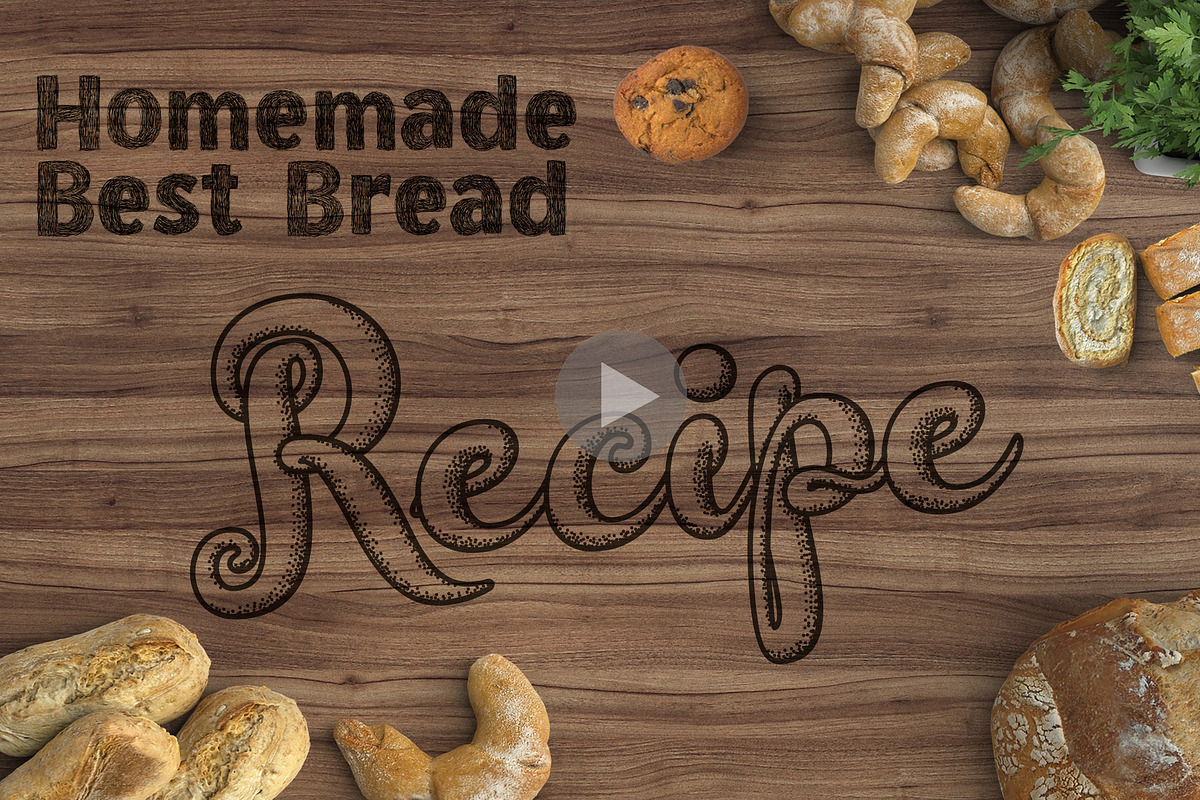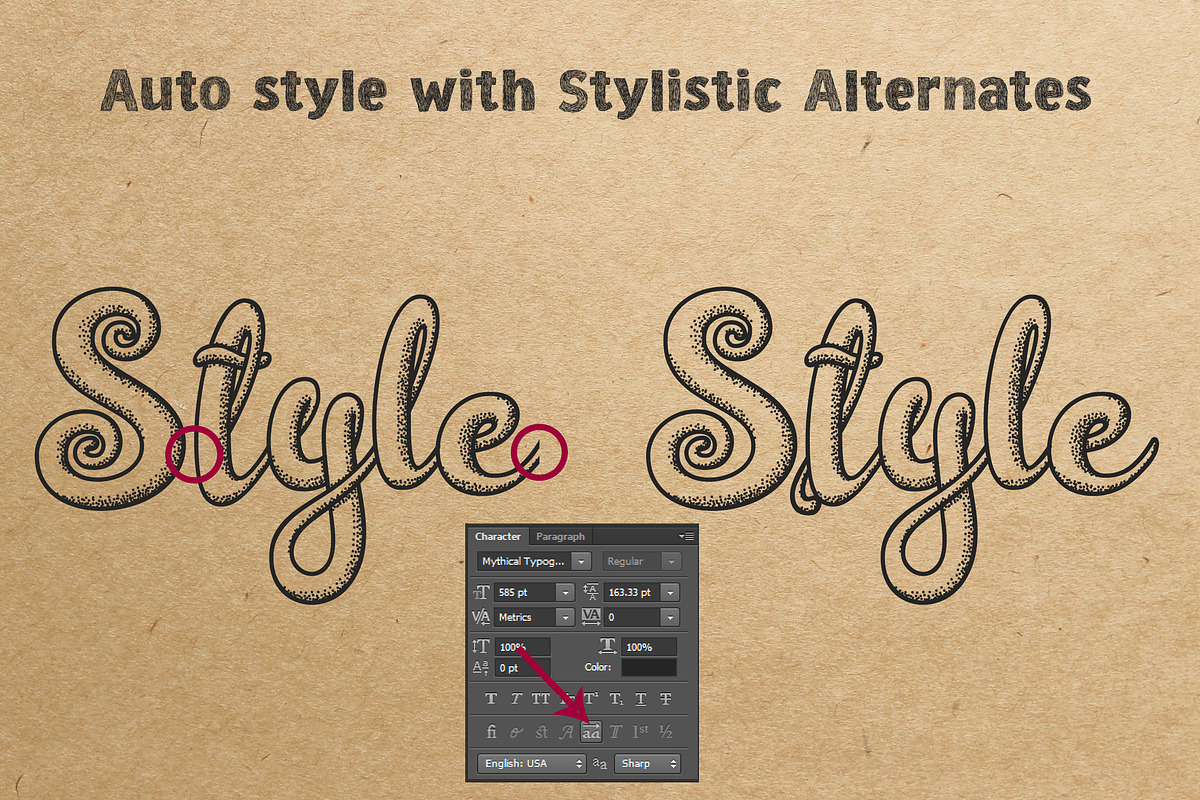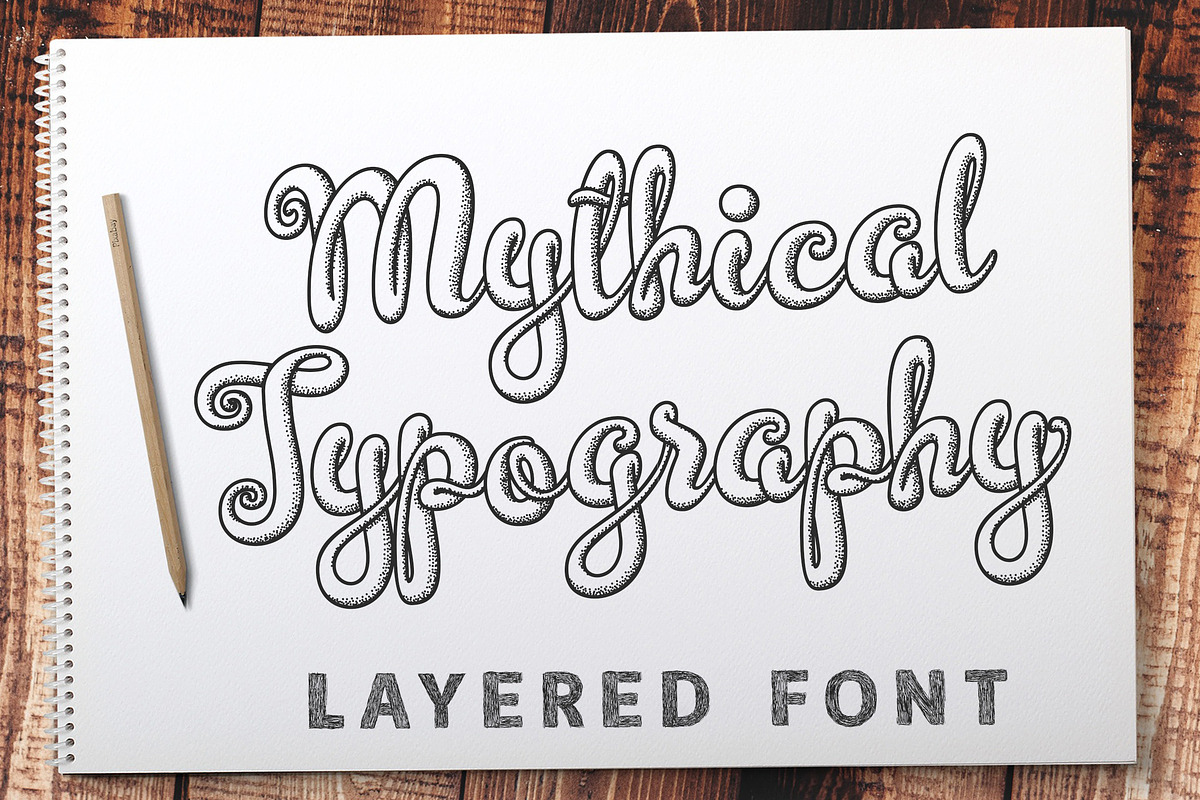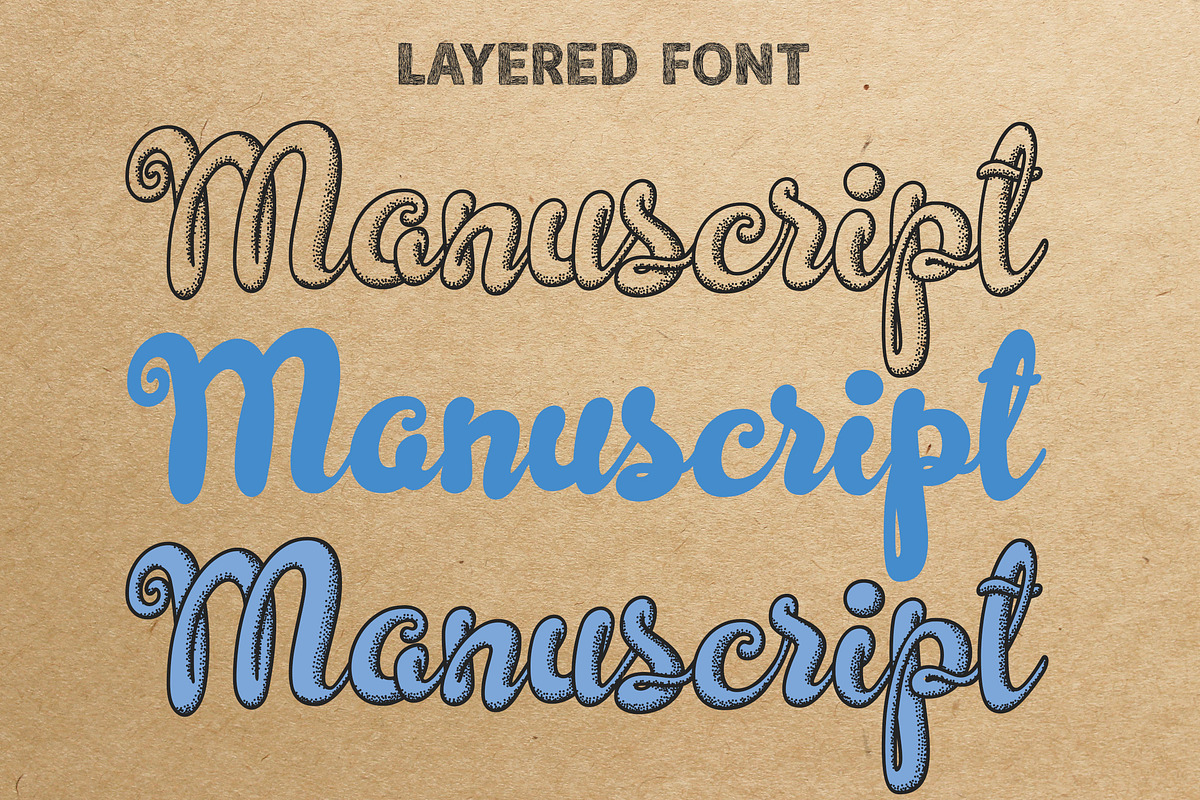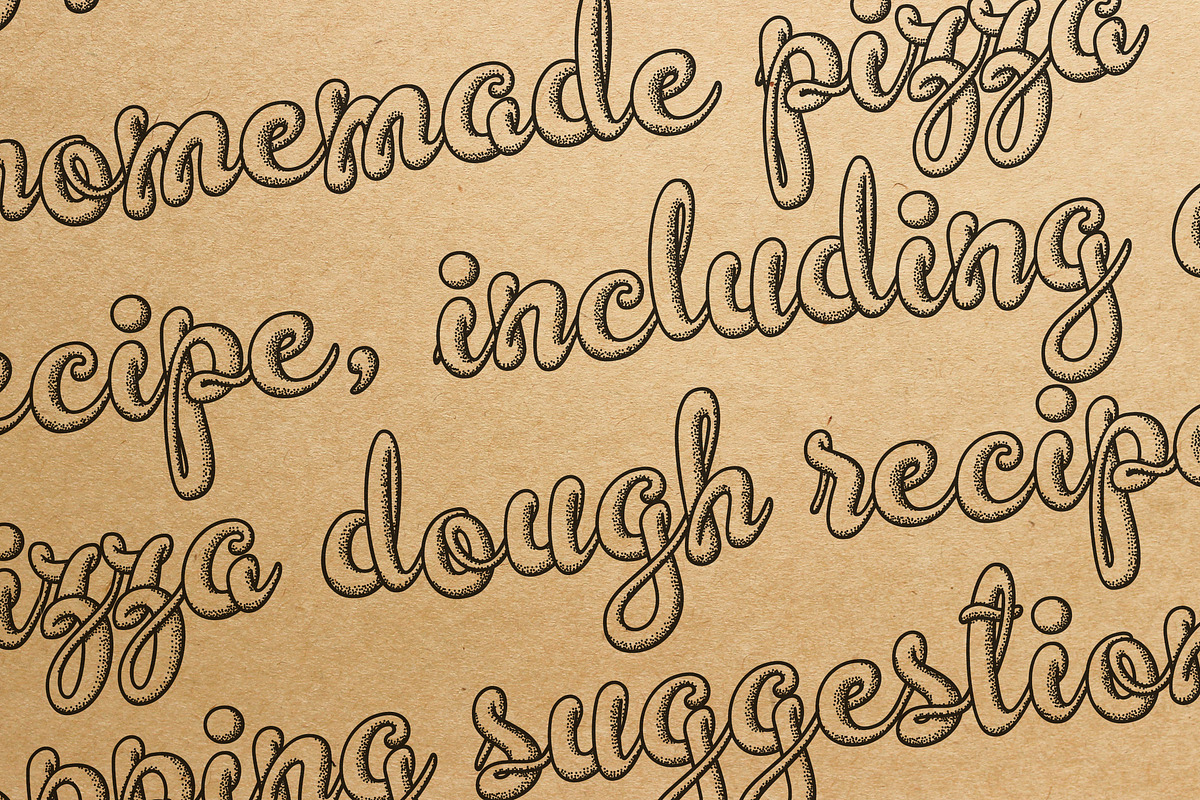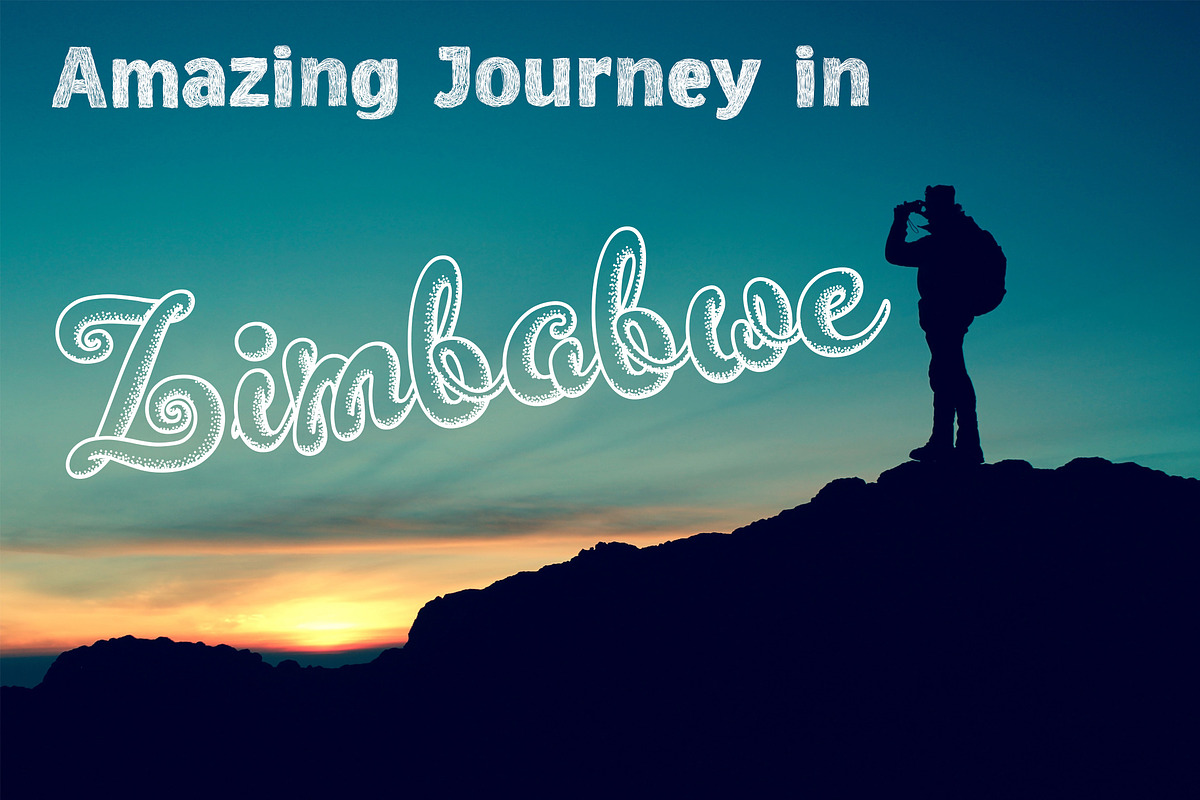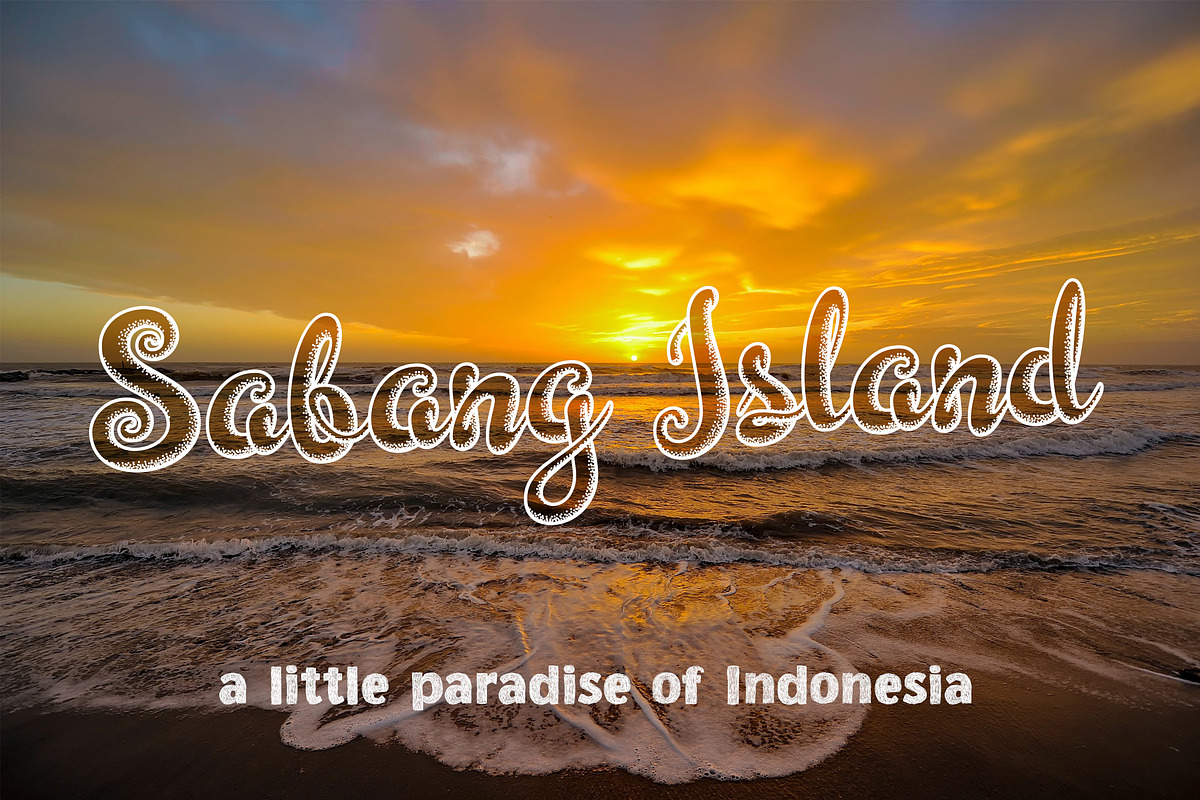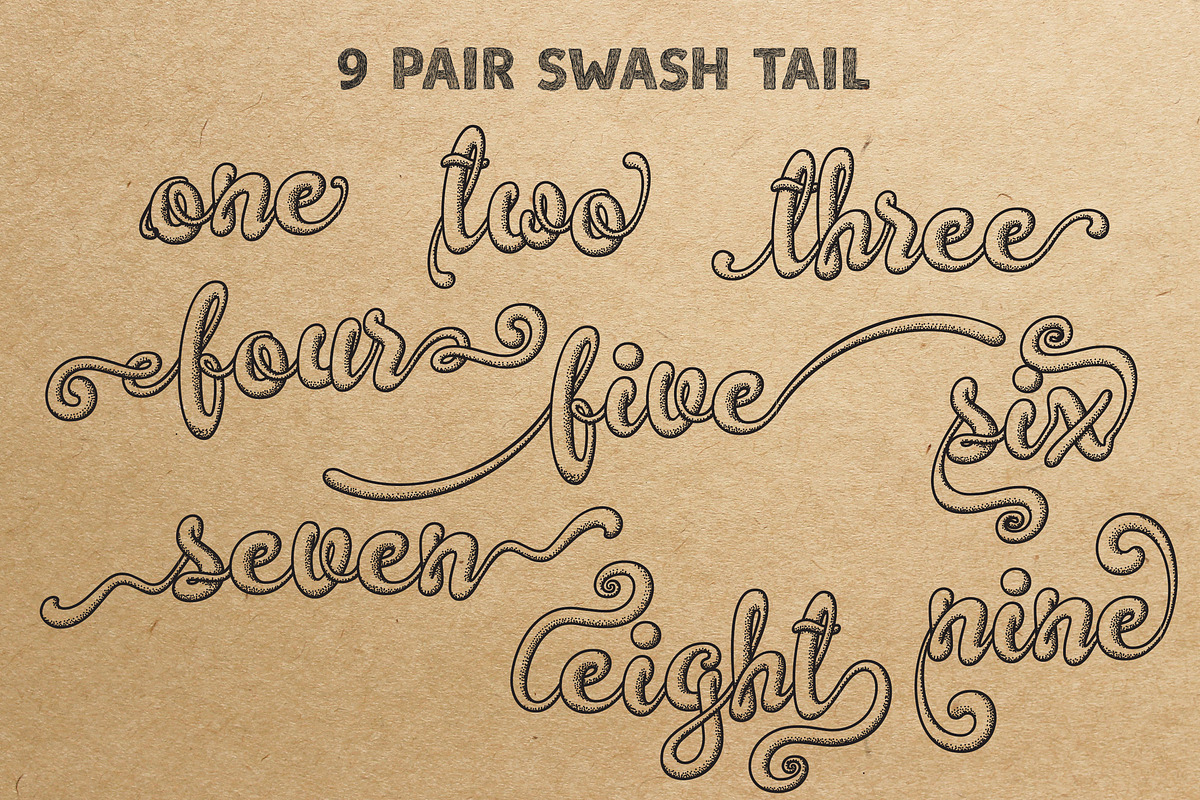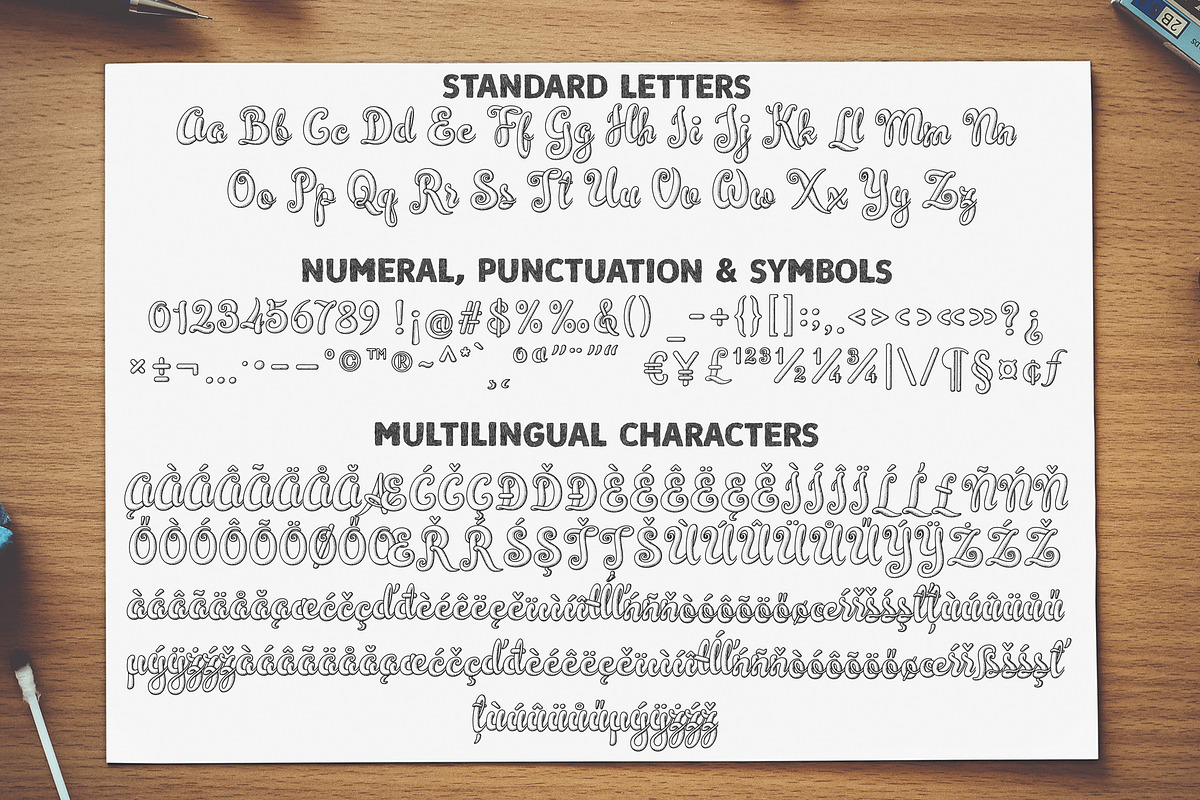
Mythical Typography | Stipple Shade
Introducing a new style of font, script, 3D look, layered, and textured in standard font format (ttf and ottf). Made with pen stippling texture style. It will nice to use as title or subtitle.
- Contain 380 glyphs who supported to Basic Latin Characters.
- 9 portable swash on left and right side.
This font need opentype feature (Stylistic Alternates) to auto close the open stroke.